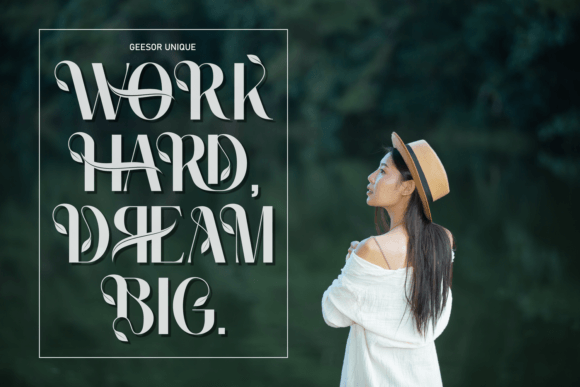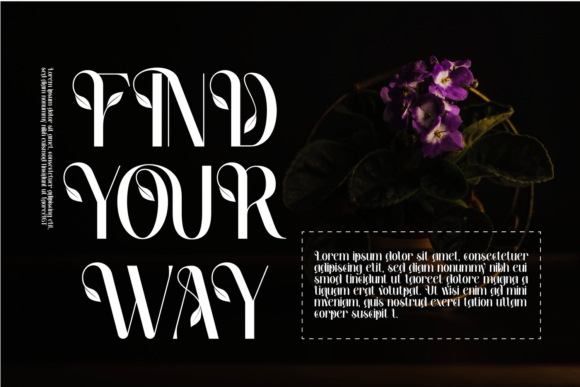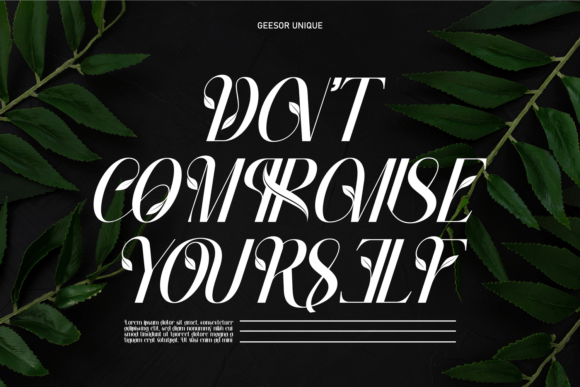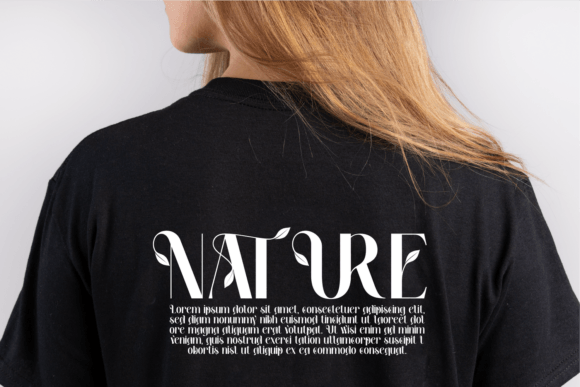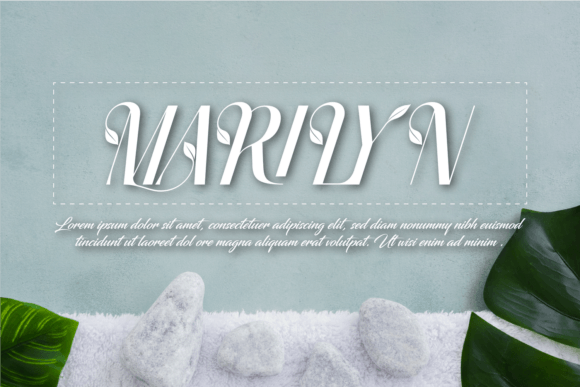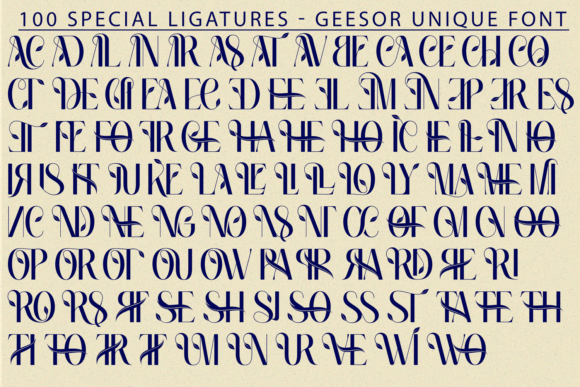
Geesor Unique Font: Elevate Your Designs with a Delicate Floral Touch
Are you tired of using the same old fonts in your designs? Look no further than the Geesor Unique Font, a beautiful and elegant floral font that’s perfect for adding a touch of nature and femininity to your projects. In this article, we’ll dive into the details of this stunning font and explore its features, uses, and benefits for designers and crafters.
A Nature-Inspired Font with a Unique Style
Geesor Unique is a delicate floral font that features a nature concept with leaf swashes, flowers, and leaves. Its unique style is characterized by intricate details and a whimsical feel that’s sure to capture the attention of your audience. This font is perfect for designers and crafters who want to add a touch of elegance and sophistication to their work.
Elegant and Feminine, yet Friendly and Approachable
One of the standout features of Geesor Unique is its ability to convey a sense of elegance and femininity while still being friendly and approachable. This font is suitable for all kinds of headlines and decorative purposes, making it a versatile addition to your design toolkit. Whether you’re creating a poster, product packaging, or logo, Geesor Unique is sure to add a touch of warmth and personality to your design.
Geesor Unique is a font that’s designed to inspire creativity and imagination. Its authentic feel and delicate floral details make it perfect for a wide range of design projects, including:
- Posters and flyers: Add a touch of elegance and sophistication to your posters and flyers with Geesor Unique.
- Product packaging: Make your product stand out on store shelves with beautiful and eye-catching packaging designed with Geesor Unique.
- Logos and branding: Create a unique and memorable brand identity with Geesor Unique.
- Stationery and invitations: Add a touch of whimsy and charm to your stationery and invitations with Geesor Unique.
So, what are the benefits of using Geesor Unique in your designs? Here are just a few:
- Elegance and sophistication: Geesor Unique adds a touch of elegance and sophistication to any design project.
- Versatility: This font is suitable for a wide range of design projects, from posters and flyers to product packaging and logos.
- Unique style: Geesor Unique has a unique style that’s sure to set your design apart from the crowd.
- Easy to use: This font is easy to use and can be incorporated into your design projects with ease.
Get Inspired by Geesor Unique
If you’re looking for a font that will inspire your creativity and add a touch of elegance to your designs, look no further than Geesor Unique. With its delicate floral details and unique style, this font is sure to become a favorite in your design toolkit. So why wait? Get inspired by Geesor Unique today and start creating beautiful designs that will capture the attention of your audience.
In conclusion, Geesor Unique is a stunning floral font that’s perfect for designers and crafters who want to add a touch of elegance and sophistication to their work. With its unique style, delicate floral details, and versatility, this font is sure to become a go-to in your design toolkit. So why wait? Download Geesor Unique today and start creating beautiful designs that will inspire and delight your audience.